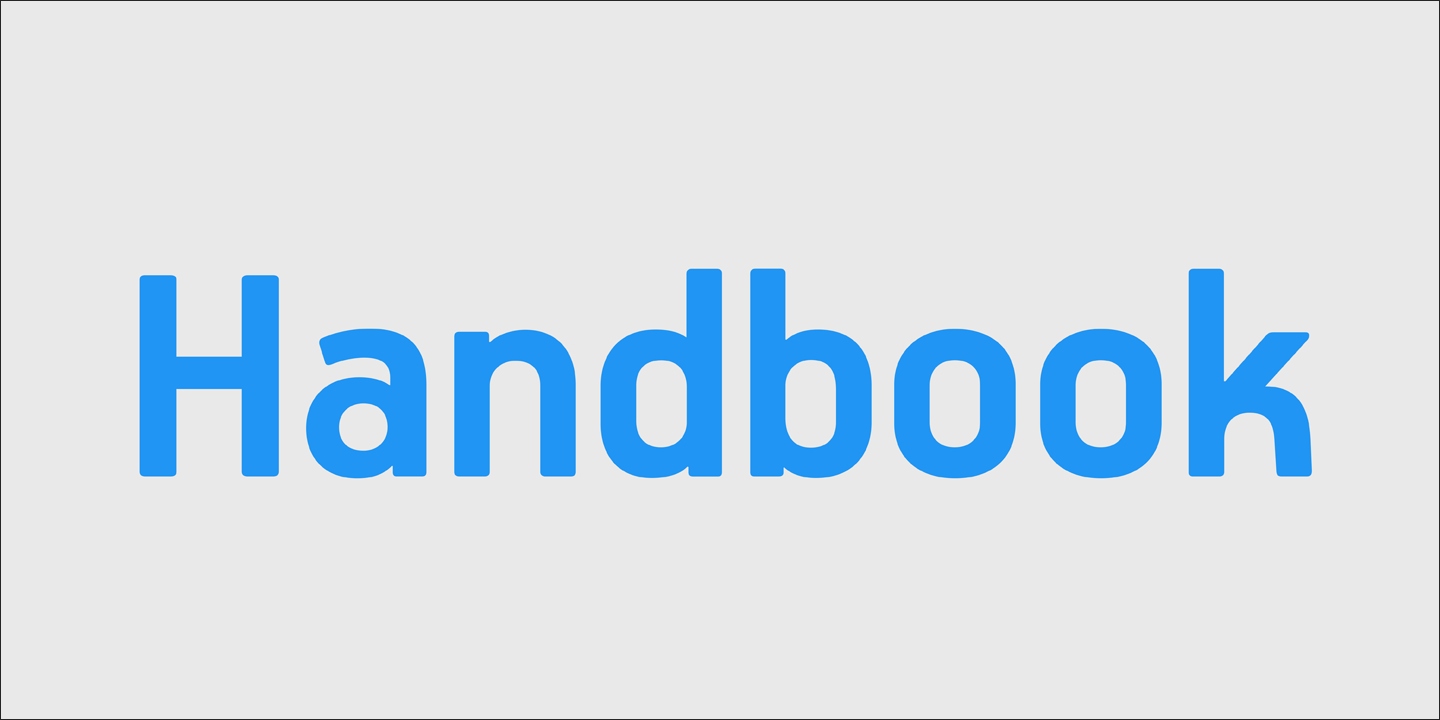
PF Handbook Pro Font is ideal for technical manuals, professional documentation, instructional guides, corporate handbooks, training materials, educational textbooks, reference publications, user interface design, business communications, and systematic information design. This reliable typeface creates authoritative instructional atmosphere in both comprehensive print manuals and digital documentation platforms.
What makes PF Handbook Pro Font exciting is its exceptional optimization for complex information hierarchy with outstanding readability across extended reading sessions. The font features carefully balanced letterforms with systematic proportions and professional character details that ensure crystal-clear communication in dense information environments. Its methodical design establishes an atmosphere of organized expertise and instructional authority that supports effective knowledge transfer and professional learning.
PF Handbook Pro Font family includes systematic variations: Light, Regular, Medium, Bold, and Condensed versions, each with comprehensive character sets and professional alternates. Each variant maintains the font's instructional clarity while providing designers with systematic options for creating organized typography hierarchies and professional documentation systems.
This exceptional instructional typeface brings authentic professional credibility to projects requiring systematic presentation. Whether you're designing corporate training materials, technical documentation, or educational resources, PF Handbook Pro Font Free Download delivers outstanding clarity and instructional sophistication. The font's systematic proportions and professional details ensure optimal information comprehension across various educational applications.
Corporate trainers and educational publishers recognize how PF Handbook Pro Font perfectly balances instructional clarity with professional presentation standards. Its systematic foundation combined with comprehensive functionality makes it essential for documentation and educational design projects. Download today and systematize your designs with this exceptionally clear instructional typography.